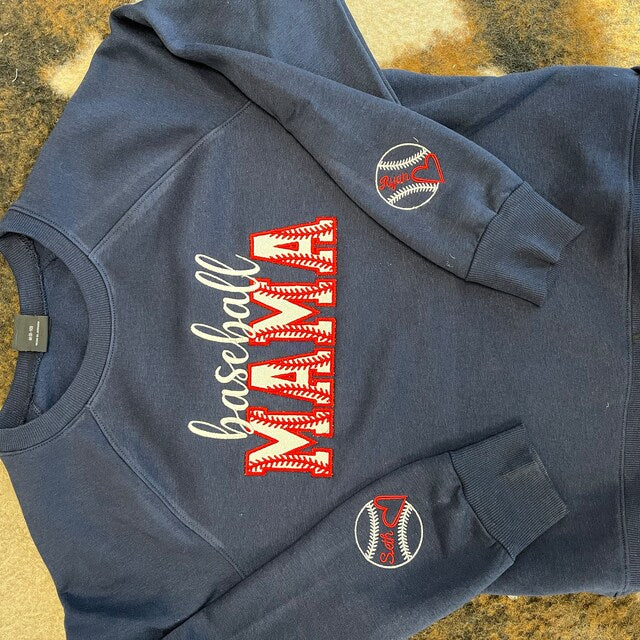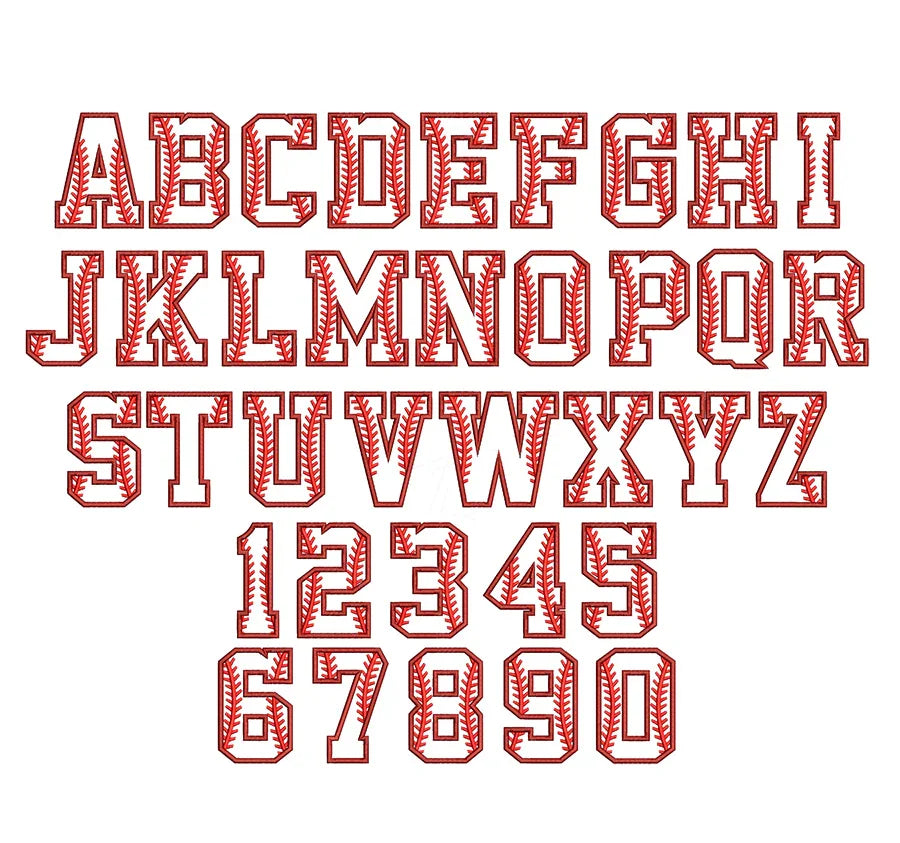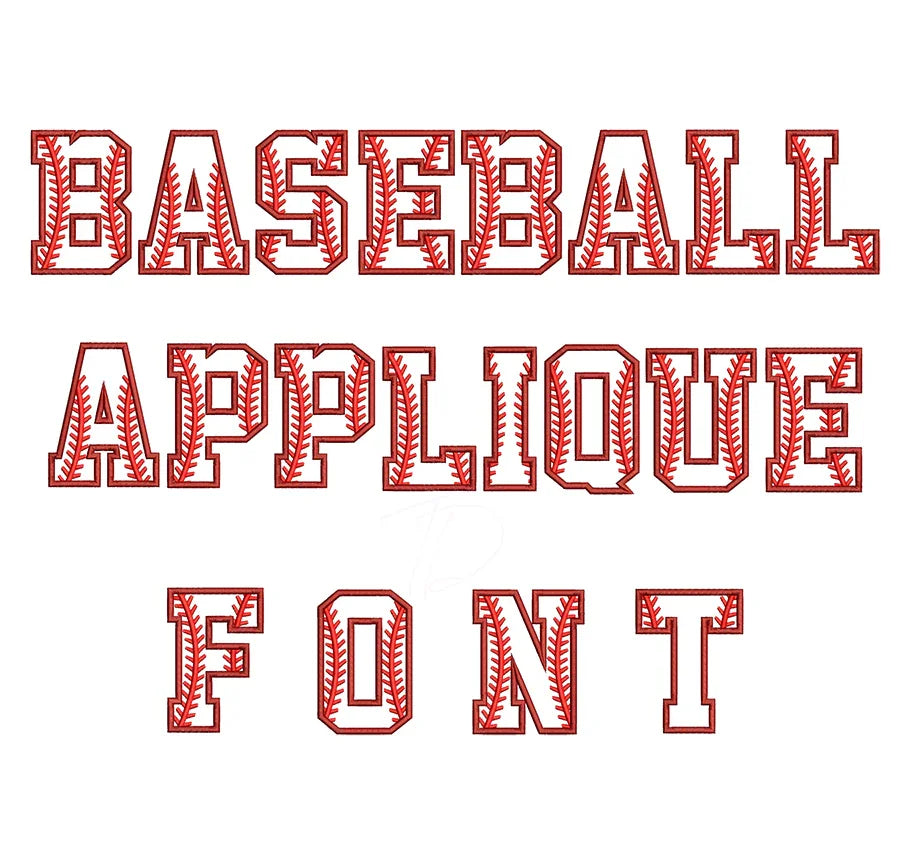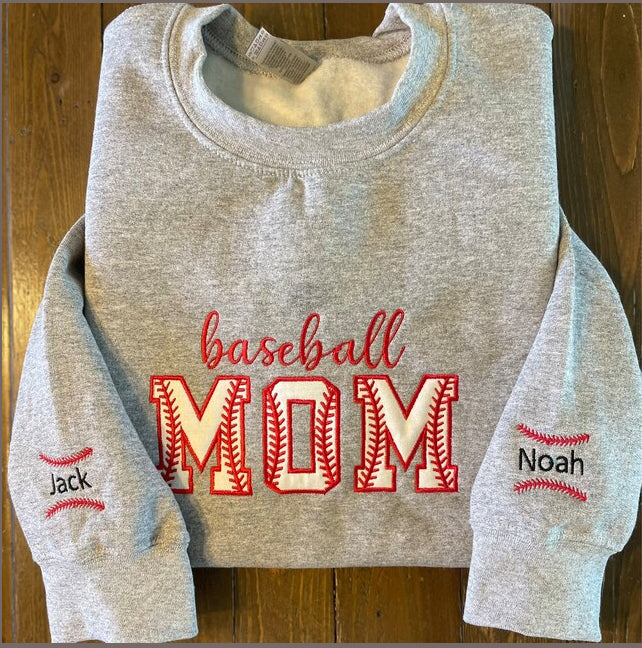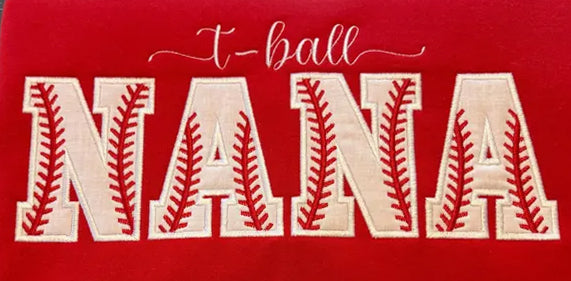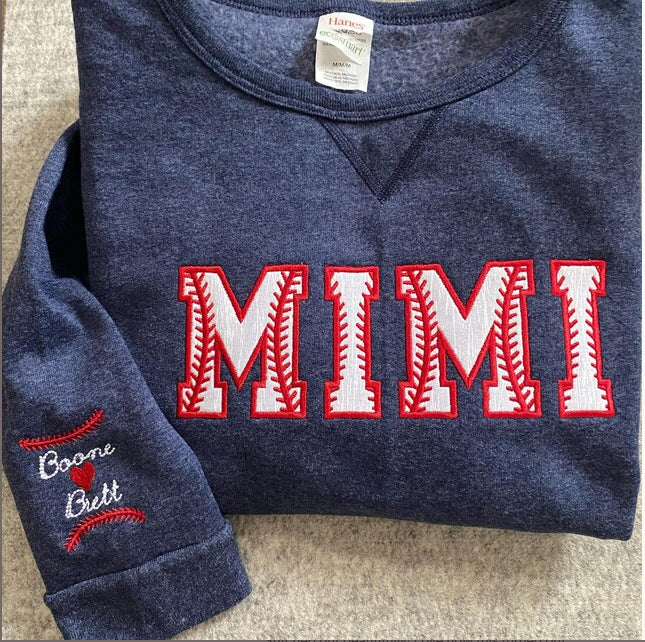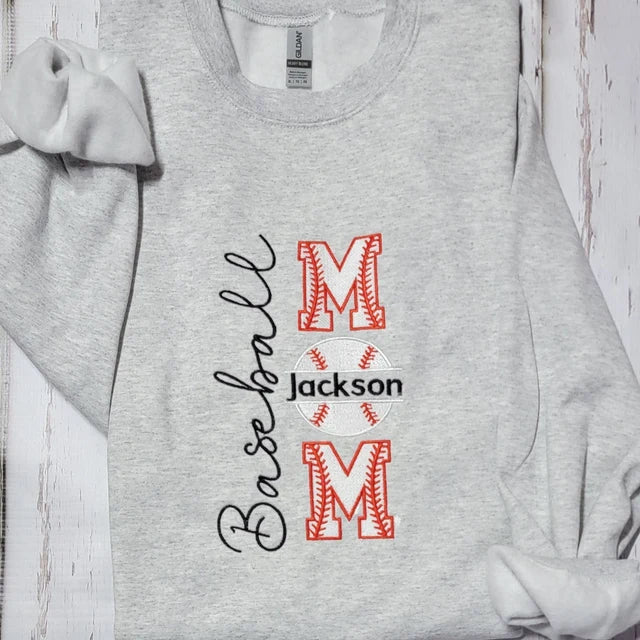
Create bold, professional embroidery designs with our Baseball Applique Font. Digitized in classic applique style — the same technique used on varsity jackets, team jerseys, and sportswear for decades. Each letter delivers a clean, dimensional finish that stands out on any garment.
Why You'll Love This Font
- ✅ Bold baseball applique style — authentic varsity look on every stitch
- ✅ Clean, smooth stitch paths — professional results for beginners and experts alike
Perfect For
- ⚾ Baseball caps, hats, and visors
- 🏆 Team jerseys and sports uniforms
- 🎓 Varsity jackets and letterman jackets
- 👕 Hoodies, sweatshirts, and t-shirts
- 🎒 Bags, backpacks, and tote bags
- 🎁 Custom gifts and school spirit wear